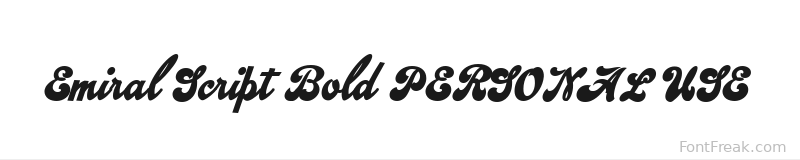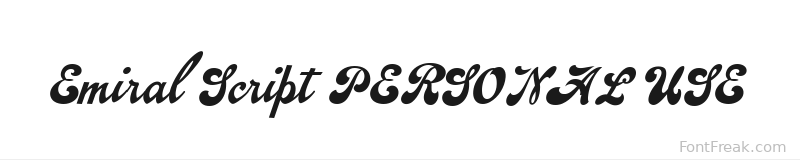
Emiral Script Bold PERSONAL USE
Emiral Script PERSONAL USE
About Emiral Script Bold PERSONAL USE
Emiral Script Bold PERSONAL USE font, designed by Mans Greback, is a captivating script font that exudes elegance and charisma. Characterized by its bold, flowing strokes, this font showcases a perfect blend of modern and classic design elements, making it an ideal choice for a variety of creative projects. The stroke weight is consistent, providing a sense of strength while maintaining a graceful appearance. The high contrast between thick and thin lines adds a dynamic touch, while the generous spacing between letters ensures readability.
This font is particularly well-suited for wedding invitations, where its decorative flair can enhance the romantic theme. Additionally, it works beautifully for movie posters, offering a stylish and eye-catching title treatment that draws attention. Restaurant menus can also benefit from Emiral Script Bold, as it adds a touch of sophistication that complements gourmet dining experiences. Furthermore, it is an excellent choice for personal branding materials, such as business cards or social media graphics, allowing small business owners to convey their unique identity.
Targeting graphic designers, content creators, and small business owners, Emiral Script Bold provides a versatile tool for those looking to stand out. Whether you're crafting a heartfelt greeting card or designing an engaging website header, this font's charming character will elevate your work.
What sets Emiral Script Bold apart is its ability to combine boldness with elegance, making it both striking and approachable. Its personal use license allows creatives to experiment freely, ensuring that your projects resonate with a unique flair. For those seeking an appealing typeface to enhance their designs, the Emiral Script Bold PERSONAL USE font free download is a fantastic option that promises to deliver style and sophistication.